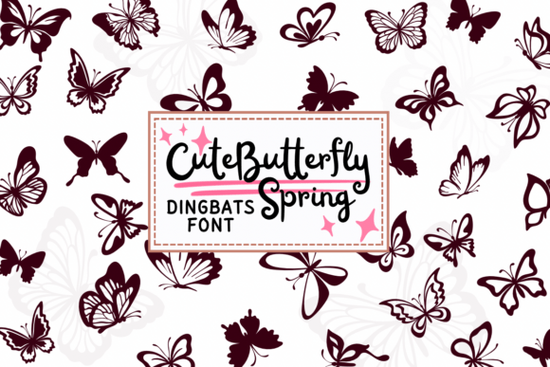
If you're working on spring-themed crafts, greeting cards, or printable decor, you’ve probably looked for playful design elements that feel fresh but not overwhelming. That’s where the Cute Butterfly Spring Font comes in handy. It’s not a traditional letter-based font instead, it’s a dingbat font filled with cheerful butterfly illustrations you can drop right into your projects. Whether you’re designing for Etsy, personalizing kids’ party invites, or adding seasonal flair to your small business branding, this font gives you quick access to whimsical spring motifs without needing to source separate clipart.
Dingbat fonts like this one work just like regular fonts you install them on your computer or design software, then type any key (often A–Z or 1–0) to generate a unique graphic. With Cute Butterfly Spring, each character outputs a different butterfly illustration, some with floral accents, soft wings, or fluttering poses. Because they’re vector-based, they scale cleanly for everything from tiny stickers to large wall art.
Who is this font best for?
This style of decorative font suits creators who want to add charm without complexity:
How to use it beyond basic decoration
While it’s tempting to scatter butterflies everywhere, thoughtful placement makes a bigger impact. Try these practical ideas:
- Accent borders: Type a row of butterflies along the edge of a printable planner page or invitation.
- Custom bullet points: Replace standard dots in lists with tiny butterflies for themed checklists or menus.
- Pattern fills: Repeat characters in a grid to create seamless background textures for digital paper or fabric mockups.
- Interactive elements: In kids’ activity sheets, use different butterflies as matching game symbols or coloring prompts.
Because the designs are simple and outlined, they also layer well over photos or colored backgrounds just adjust opacity or add a subtle stroke in your editing software if needed.
It pairs well with clean sans-serif fonts (like Montserrat or Quicksand) for contrast, or with handwritten styles for a more organic spring look. Avoid combining it with other overly detailed dingbat fonts, as that can make your layout feel cluttered.
One thing to note: since this is a dingbat font, it doesn’t include letters or numbers for body text. Think of it as a toolkit of illustrations, not a typography solution. If you need both decorative elements and readable text, plan to use two fonts together.
And remember: less is often more. A single butterfly near a headline or as a closing flourish can feel intentional and elegant, while too many may dilute your message.